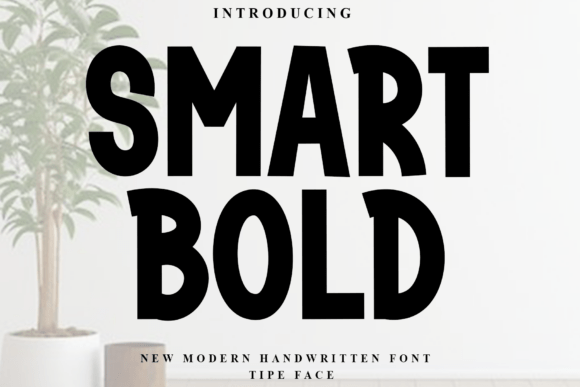
The Ultimate Font for Bold Statements: A Deep Dive into Smart Bold
I’ll never forget the time I was working on a branding project for a new coffee shop. My client wanted a font that would make their logo stand out, but still convey a sense of warmth and approachability. After hours of scouring font libraries and trying out different combinations, I stumbled upon Smart Bold – a clean, powerful display font with a contemporary handwritten feel. It was love at first sight! ✨
Smart Bold’s thick, confident strokes made it the perfect fit for the coffee shop’s logo, and it’s been a go-to font for me ever since. In this article, I’ll share my honest review of Smart Bold, provide a practical guide on how to use it, and explore similar fonts that might tickle your design fancy.
- ✅ Confidence booster: Smart Bold’s bold strokes make it perfect for headlines, branding, and social media graphics that need to stand out.
- ✨ Versatile: Its modern yet approachable feel makes it suitable for a wide range of design projects, from posters to packaging.
- 💡 Easy to read: Despite its boldness, Smart Bold remains surprisingly legible, even at smaller sizes.
While Smart Bold is an amazing font, it’s not perfect. Here are a few things to keep in mind:
- ⚠️ Limited use in body text: Due to its boldness, Smart Bold might not be the best choice for longer blocks of text. Use it sparingly for headings and titles.
- 🤔 Glyph limitations: While Smart Bold has a range of OpenType features, it might not have every glyph or stylistic alternate you need. Be sure to check the font’s capabilities before committing to a project.
The Story Behind Smart Bold
Smart Bold was designed with the modern designer in mind. Its creator wanted to craft a font that would be both bold and approachable – perfect for making a statement in a crowded design landscape. With its clean lines and confident strokes, Smart Bold has become a go-to font for designers looking to add a bit of personality to their work.
Q: What makes Smart Bold so special?
A: Smart Bold’s unique combination of bold strokes and clean lines makes it perfect for headlines, branding, and social media graphics.
Q: Can I use Smart Bold for body text?
A: While Smart Bold is an amazing font, it’s not ideal for longer blocks of text. Use it sparingly for headings and titles.
Q: Is Smart Bold suitable for print design?
A: Absolutely! Smart Bold’s bold strokes and clean lines make it perfect for a wide range of print design projects, from posters to packaging.